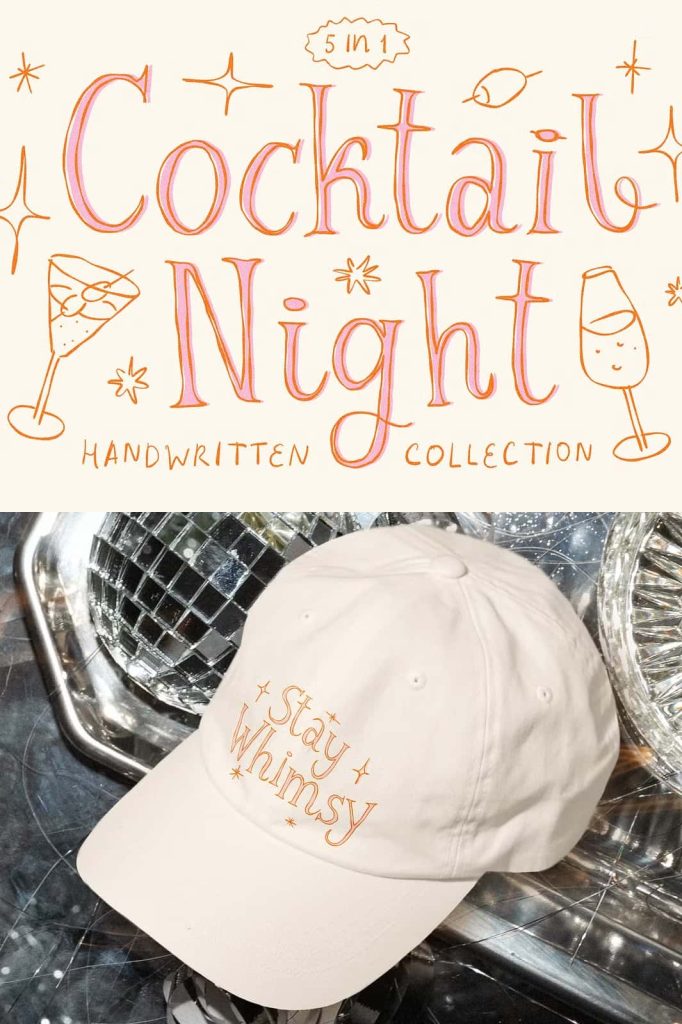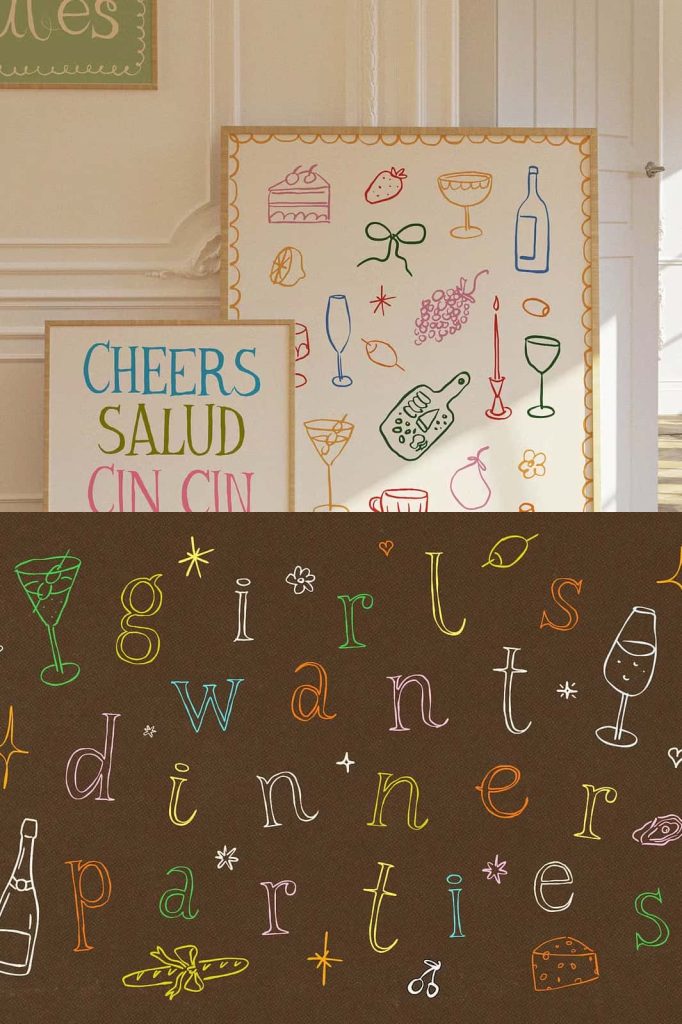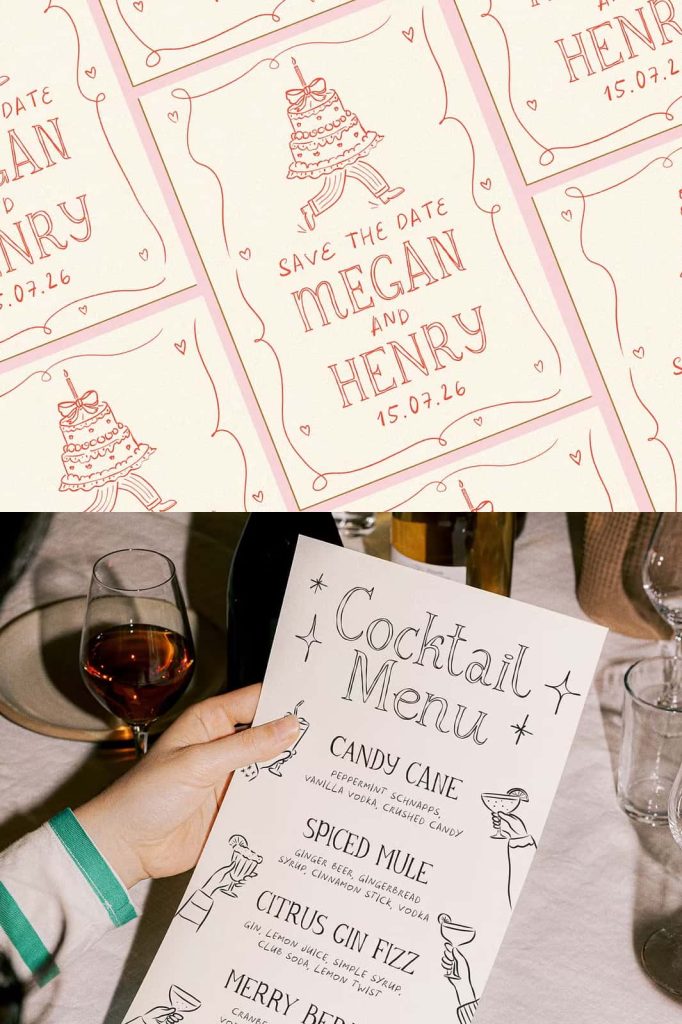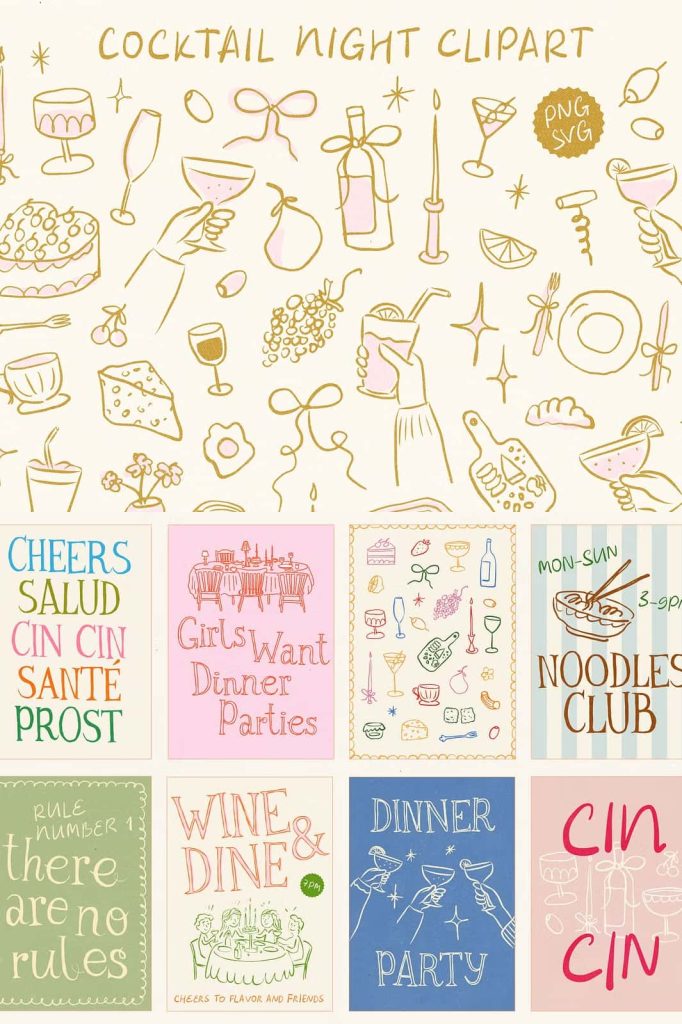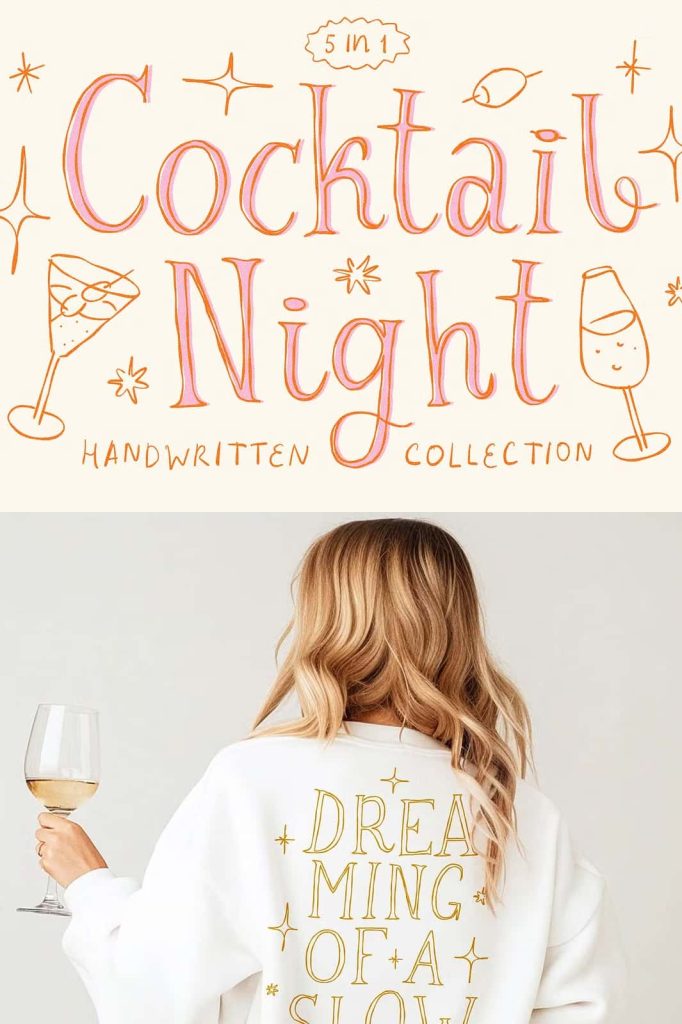
Cocktail Night Handwritten Font Family
Cocktail Night is a playful and expressive handwritten font family created for designers who want to add personality and charm to their work. This unique collection offers five distinctive handwritten fonts that work beautifully together while still maintaining their own character. Each typeface carries a quirky and artistic style that helps designers create layouts that feel lively, stylish, and visually engaging.
Unlike ordinary font packages, Cocktail Night delivers more than simple lettering. It offers a complete creative toolkit designed to inspire designers and simplify the design process. With a collection of fonts that complement one another and a set of charming illustrations, this font family helps you build beautiful compositions quickly and confidently.
Whether you design posters, wedding invitations, menus, or branding materials, Cocktail Night gives you the flexibility to experiment and craft designs that feel personal and distinctive.
A Creative Collection of Five Handwritten Fonts
Cocktail Night includes five quirky handwritten fonts that bring a natural and expressive rhythm to your typography. Each font features unique letterforms, playful strokes, and a handcrafted appearance that captures the energy of real handwriting. Instead of rigid digital shapes, these letters move with a free and artistic flow.
The variety within the family allows designers to mix and match different styles to create visually interesting layouts. You can combine bold handwritten titles with softer supporting text, or pair expressive lettering with subtle scripts to create balanced and engaging designs.
Because these fonts were designed to work together, they maintain visual harmony even when combined in the same project. This versatility makes Cocktail Night an excellent choice for designers who want a cohesive yet dynamic typography system.
Over 100 Hand-Drawn Illustrations Included
Cocktail Night expands beyond typography by including a collection of more than 100 hand-drawn illustrations. These charming doodles add an extra layer of creativity and personality to your projects. Each illustration follows the same playful aesthetic as the fonts, allowing them to integrate naturally into your designs.
Instead of searching for separate graphic elements, designers can immediately access a set of illustrations that complement the lettering style. This feature saves time and encourages experimentation with layouts, compositions, and decorative details.
You can use these illustrations to frame text, decorate invitations, enhance menus, or create engaging social media graphics. The combination of fonts and artwork allows you to build complete visual concepts without needing additional assets.
Perfect for Posters, Invitations, and Menus
Cocktail Night works beautifully in projects that require personality and visual warmth. Event posters, wedding invitations, café menus, and party graphics benefit greatly from its expressive style. The playful lettering helps attract attention while maintaining a friendly and stylish tone.
Designers can use the fonts to highlight headlines, emphasize key messages, or add decorative typography to layouts. The organic strokes and irregular details create an authentic handmade appearance that feels fresh and engaging.
For weddings and special events, Cocktail Night offers a relaxed elegance that feels welcoming and joyful. The fonts bring warmth and character to invitations, place cards, menus, and signage, helping designers create memorable experiences for guests.
A Playful Yet Stylish Design Aesthetic
Cocktail Night balances playful creativity with stylish design. The handwritten shapes feel spontaneous and energetic, but they also maintain enough structure to keep text readable and visually appealing. This balance allows designers to produce work that looks artistic while still maintaining professional quality.
The fonts carry a casual charm that works well with modern design trends, including hand-lettered branding, lifestyle graphics, and creative editorial layouts. When paired with simple backgrounds or minimal design elements, Cocktail Night becomes a strong visual focal point that draws attention immediately.
This balance between playful and stylish makes the font family suitable for a wide range of creative industries, including hospitality, event planning, boutique retail, and digital content creation.
Designed for Fast and Inspiring Creativity
Cocktail Night was created to help designers start creating immediately. The combination of fonts and illustrations forms a ready-to-use design toolkit that encourages creativity from the very beginning. Instead of spending hours searching for compatible assets, you can focus on building layouts and exploring ideas.
The fonts remain flexible enough to adapt to many different visual styles. Designers can use them for vibrant and colorful compositions or integrate them into softer, minimalist layouts. This adaptability ensures that the collection remains useful across many types of projects.
Whether you are designing posters, menus, invitations, branding materials, or digital graphics, Cocktail Night helps transform ordinary layouts into engaging visual experiences. Its playful spirit and handcrafted style allow every project to feel personal, lively, and uniquely your own.